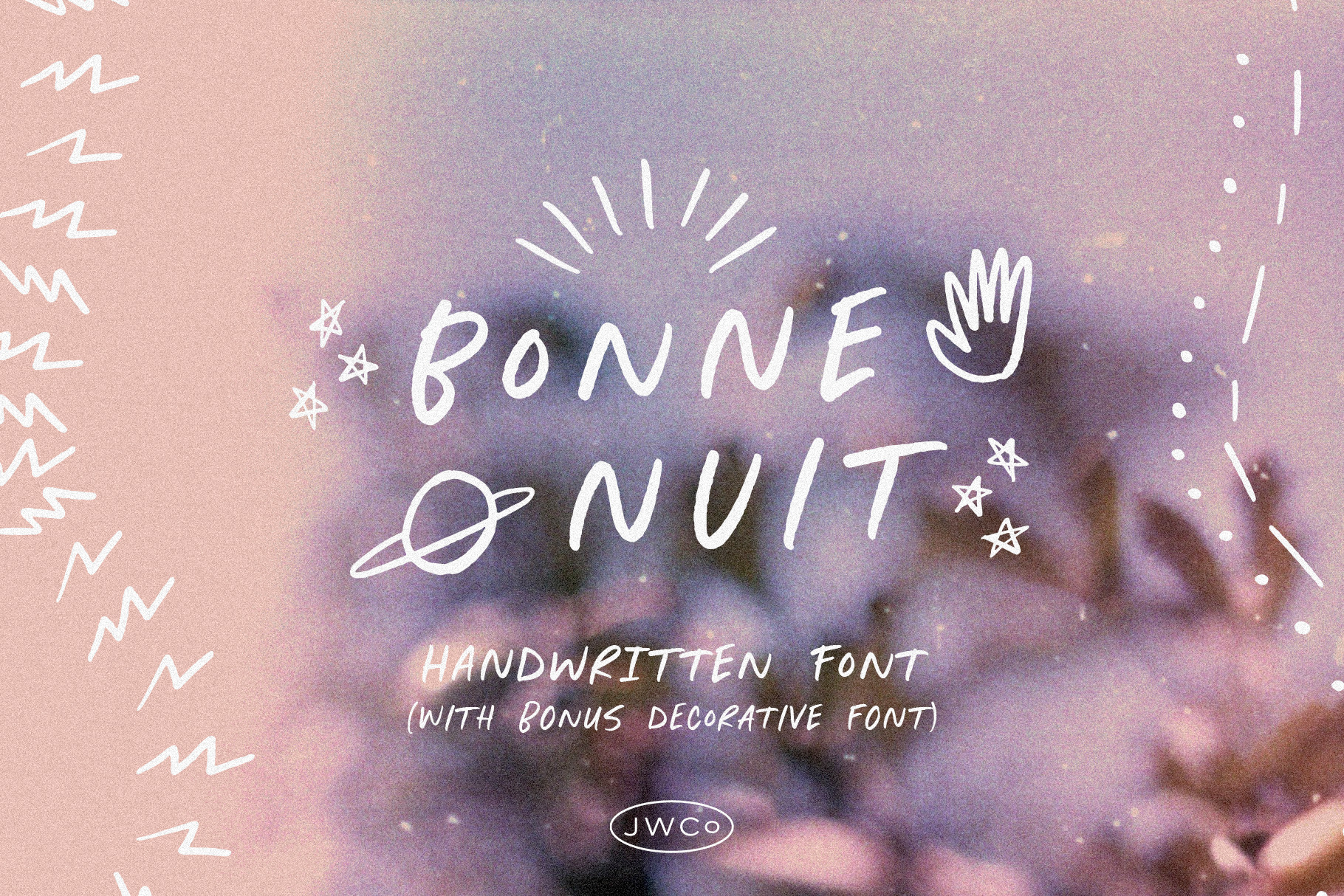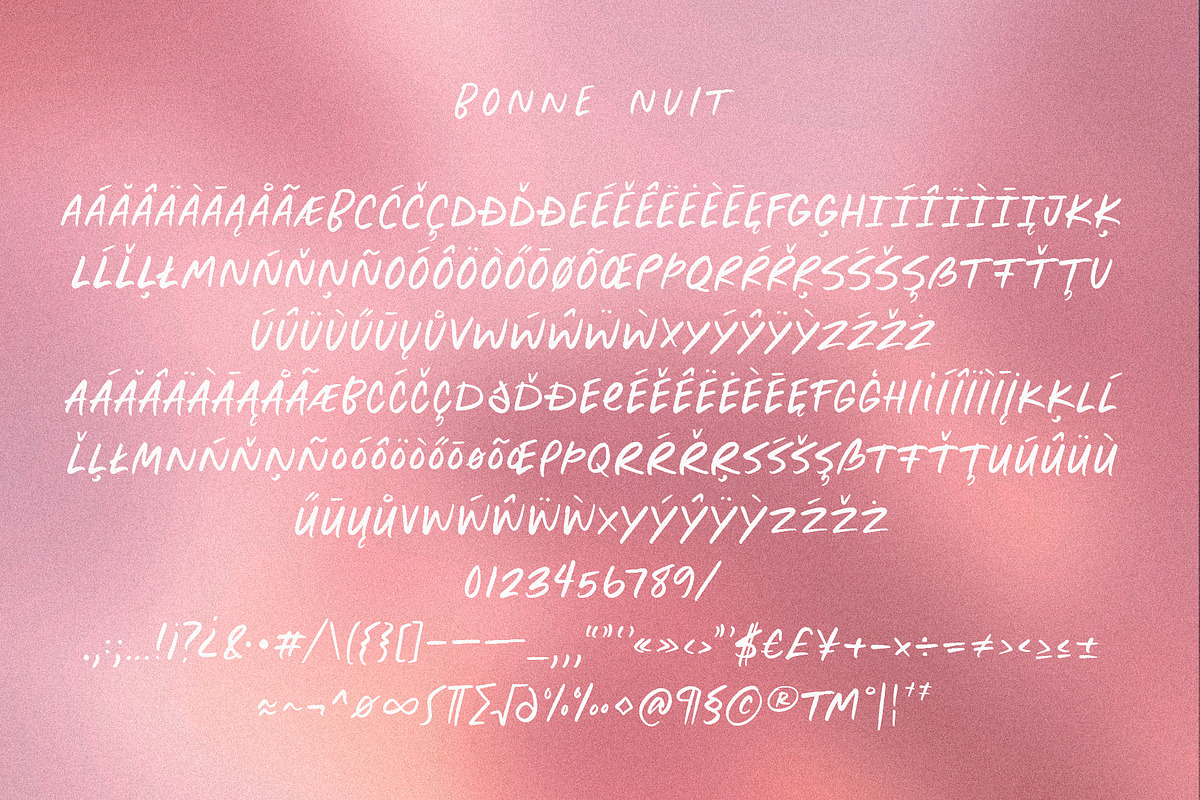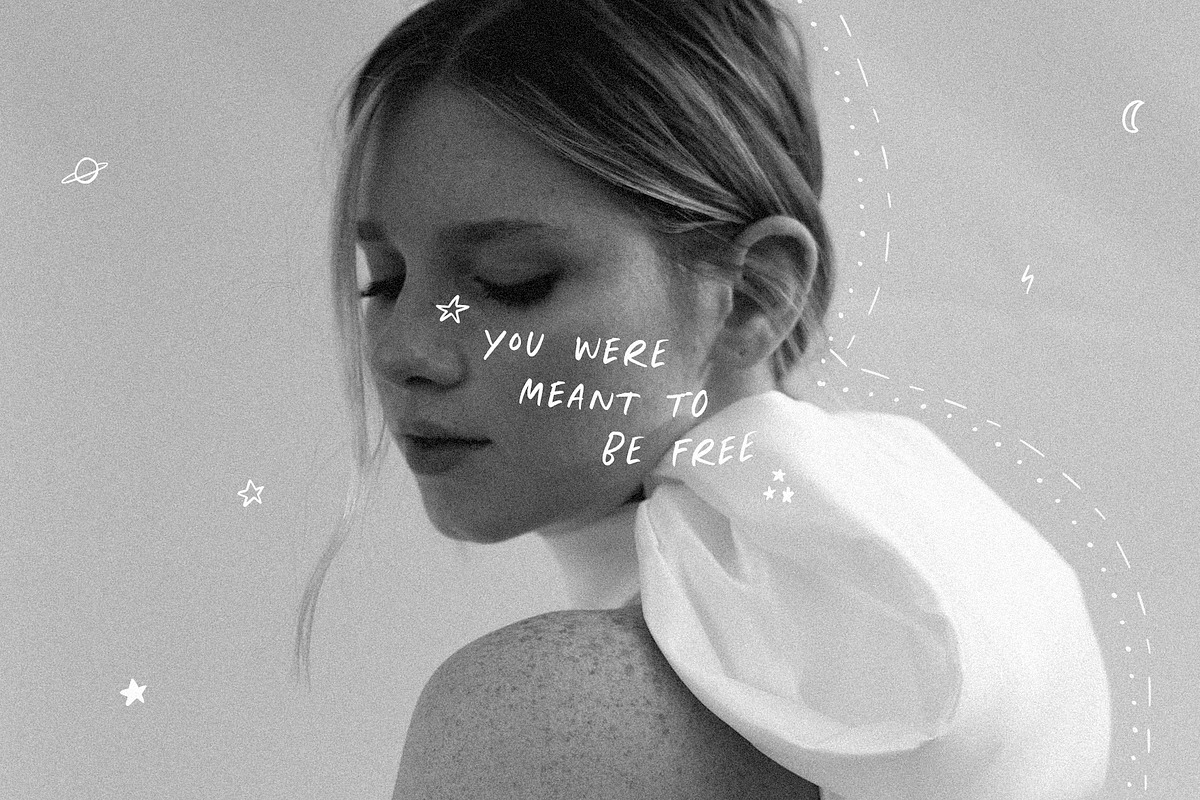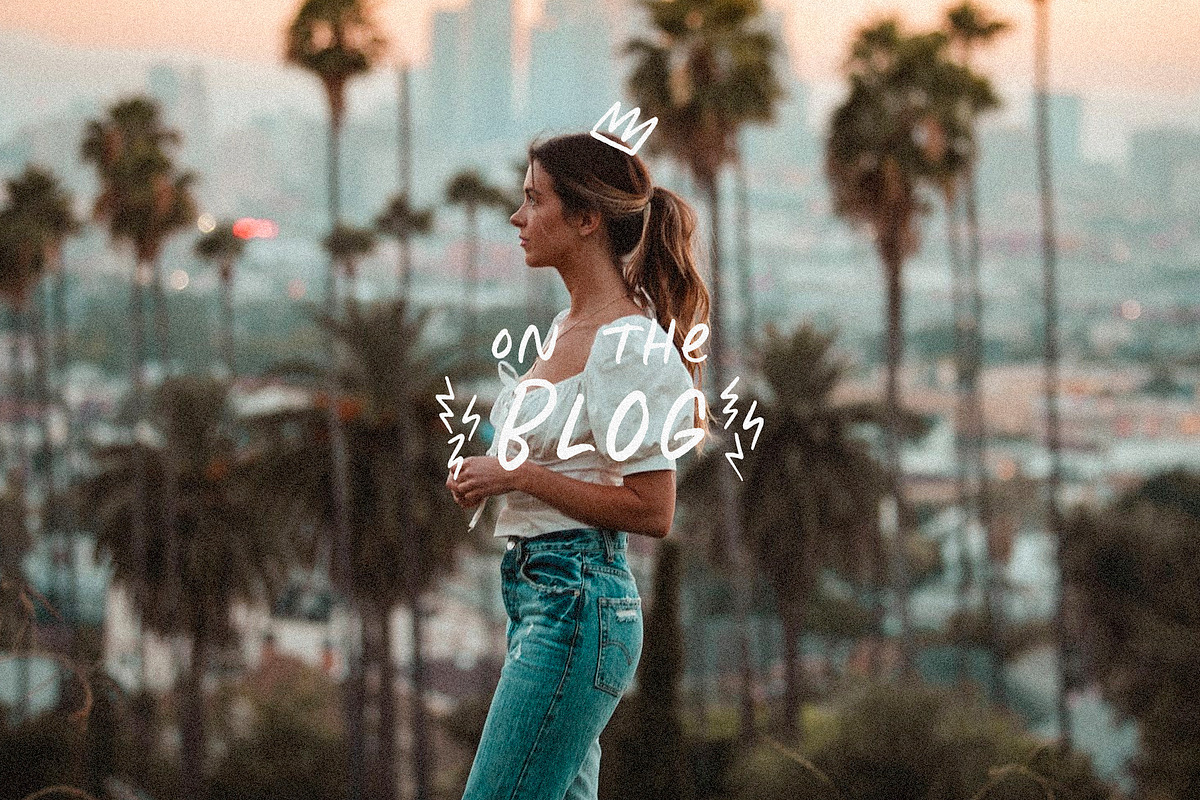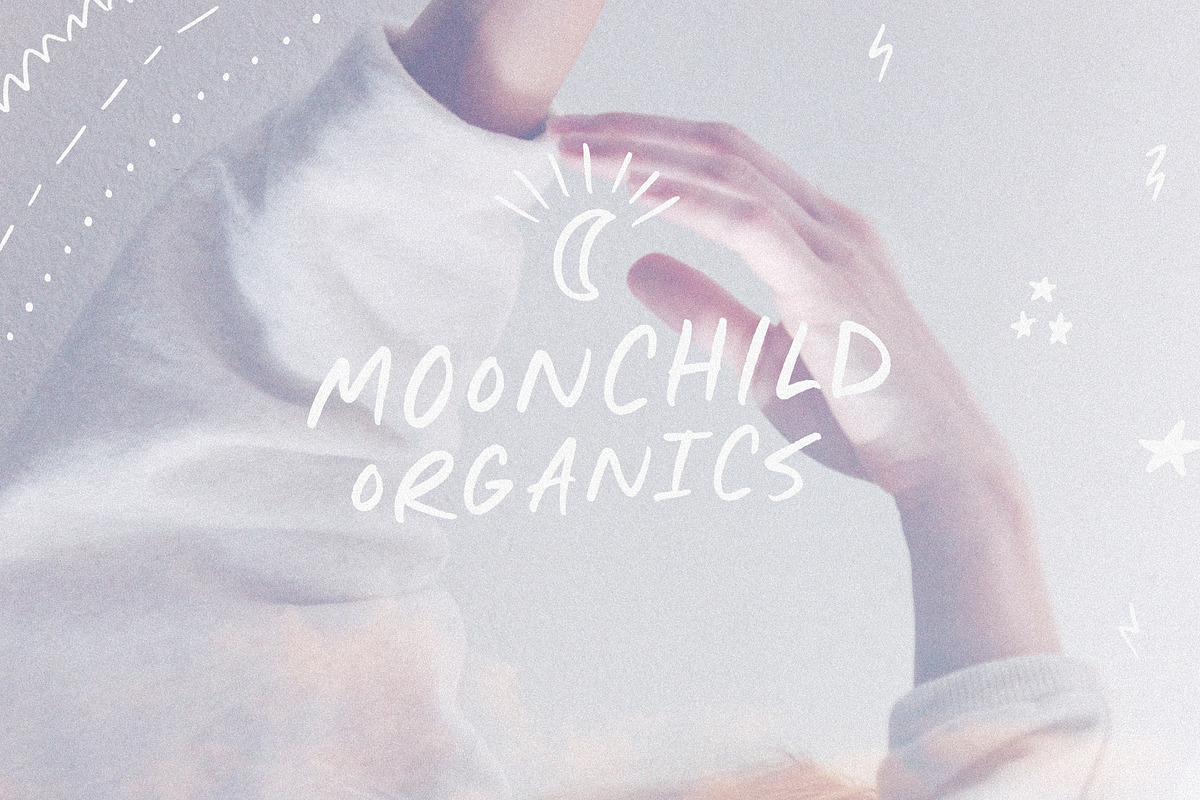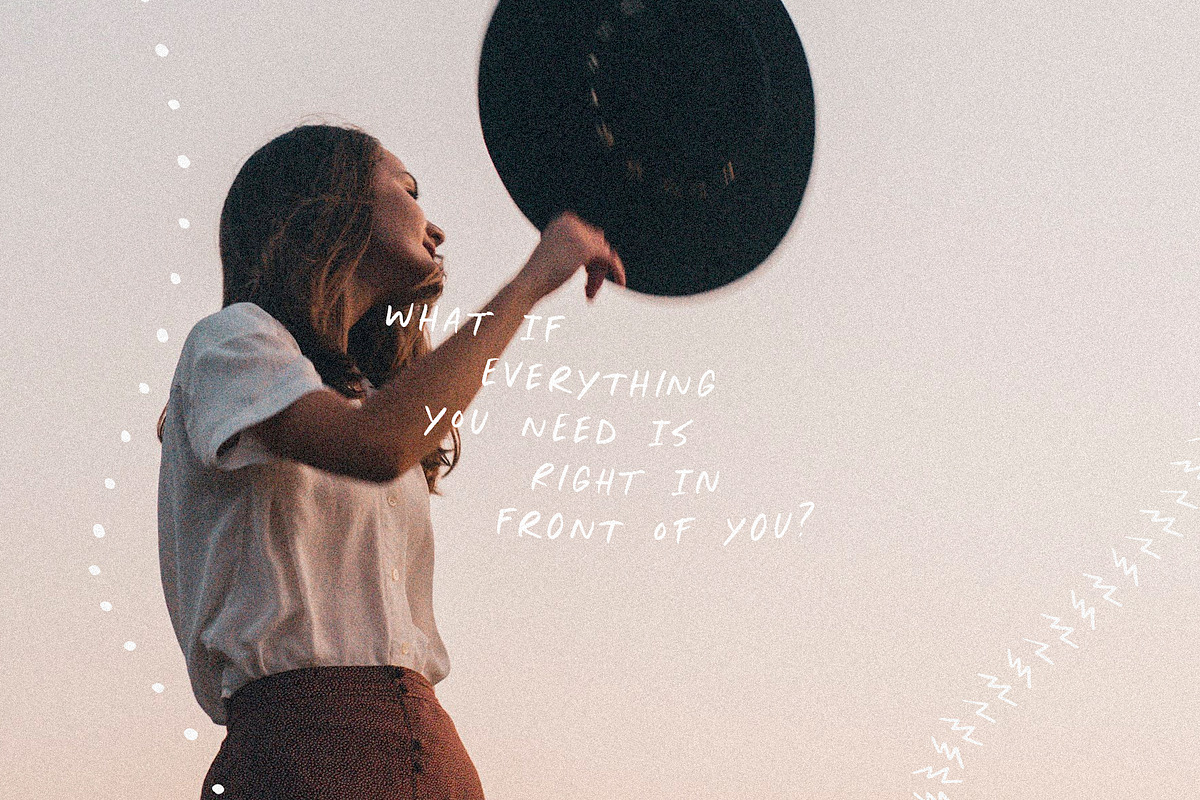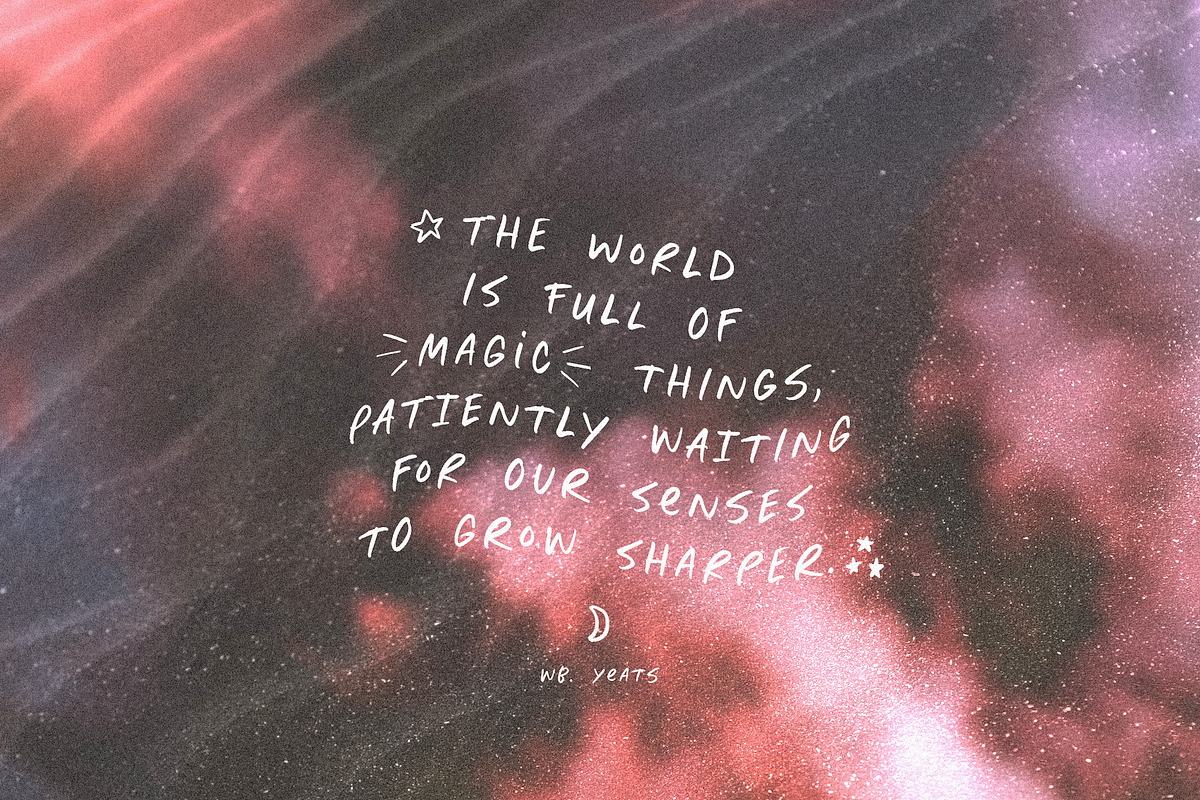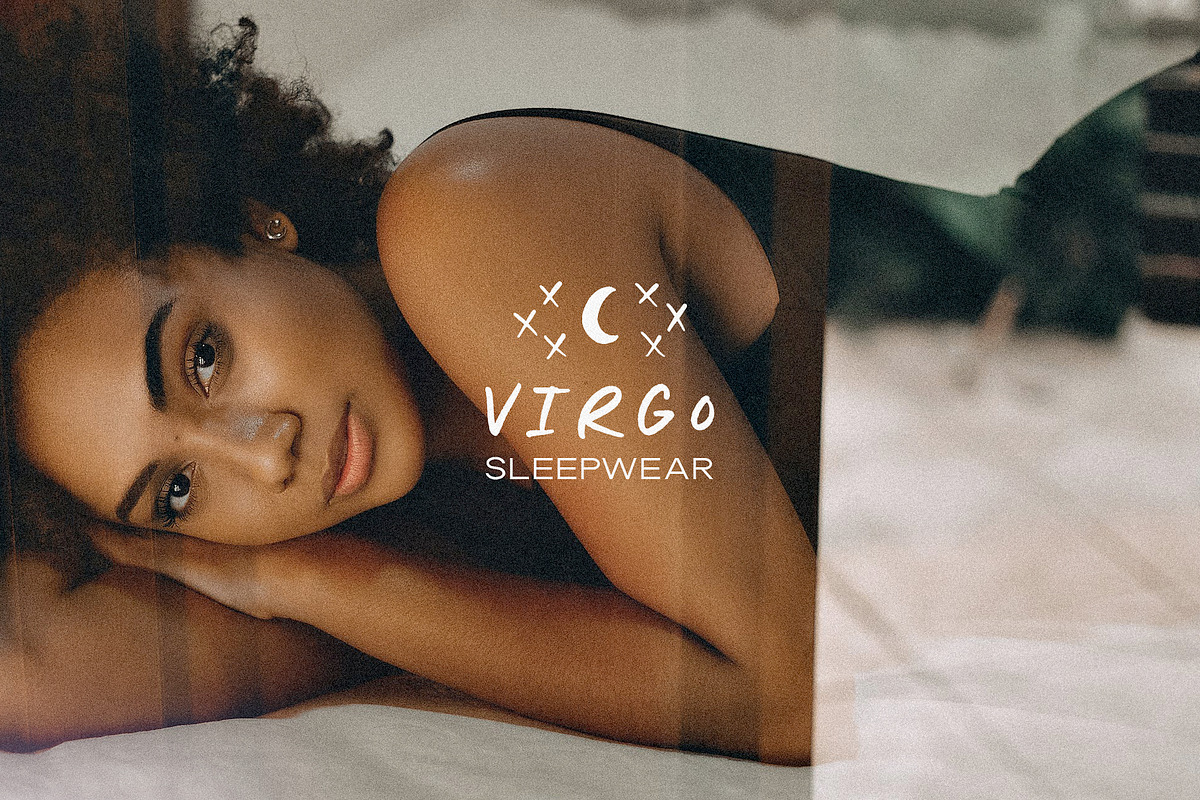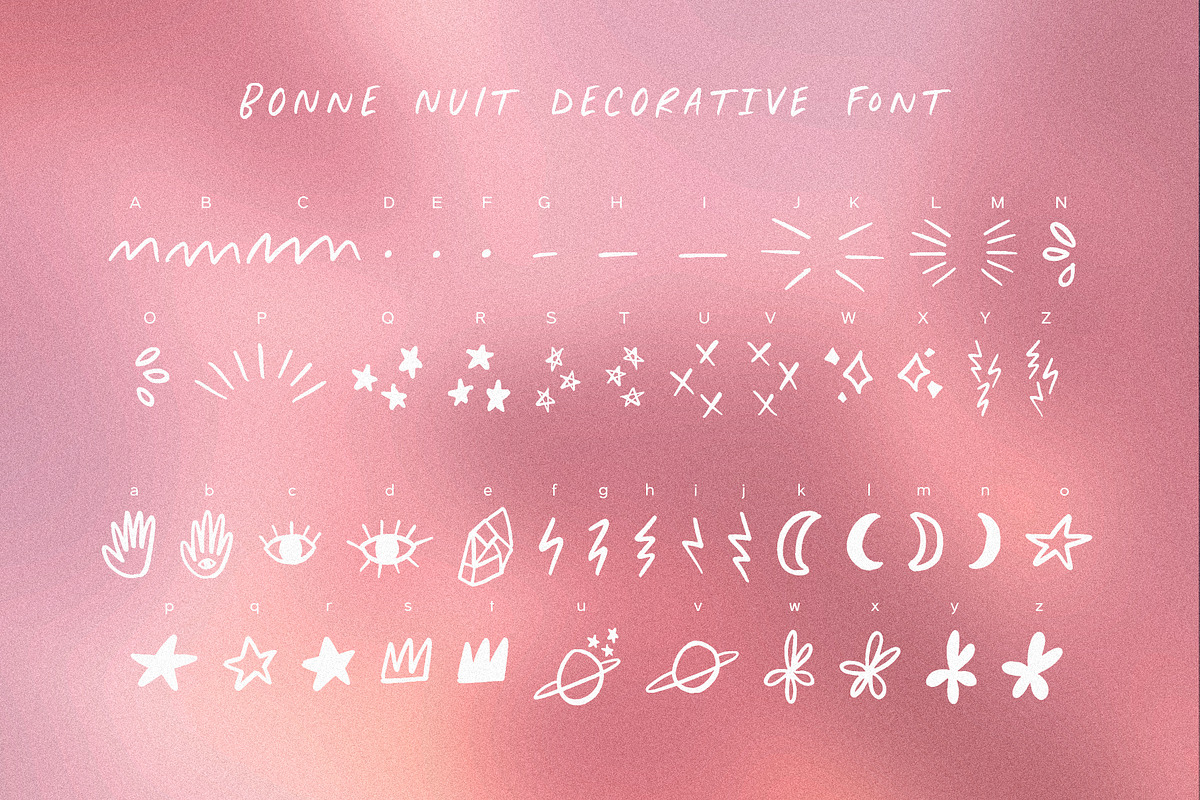
Bonne Nuit – Magical font w/ dingbat
- Bonne Nuit Print: Uppercase letters, numbers, & extended punctuation (alternate letters available by typing lowercase)
- Bonne Nuit Decorative: 52 decorative elements for logos and more! These can be typed out using A-Z and a-z. Having the decorative elements in a font format (rather than .jpg or .png) helps make sure they can be scaled to whatever size you like without pixelating! Plus, if you set the decorative font to the same size as the print font, your stroke thicknesses will match!
- Non-English support for the international designer
- Same stroke thickness with each font, so you don't need to make any time-consuming adjustments to get it looking right!
This is such a fun handwritten font and decorative pair, perfect for creating quotes, logos, or just adding a hand-written touch to any project!
While other fonts usually take some size adjusting to get the decorative elements looking just right, Bonne Nuit has the same stroke thickness for both the print and decorative fonts, so you can set each font to the same size and you're done!
Bonne Nuit also has alternates for each letter, so when you type uppercase or lowercase for each font, the letters will change slightly.
One of my favorite ways to use the decorative (dingbat) font is to use the pen tool in Photoshop to create fun paths around objects or people, then use the text tool to type along that path, typing the letters "ABC", "DEF", or "GHI" in random order to create lines of zig-zags, dots, or dashes! It's also fun to use the lightning bolts in the same way (f-j). See images 1, 2, 5, & 6 for examples :)